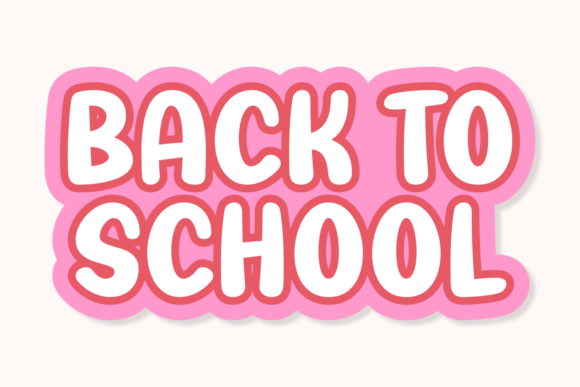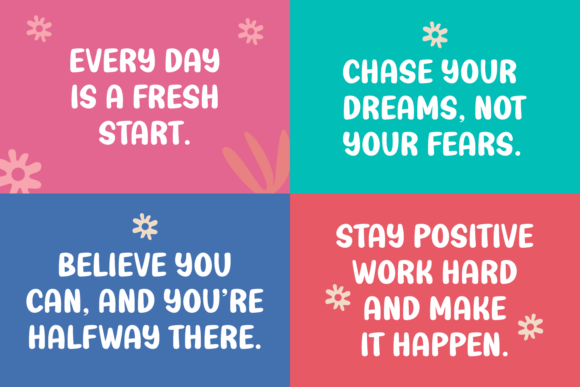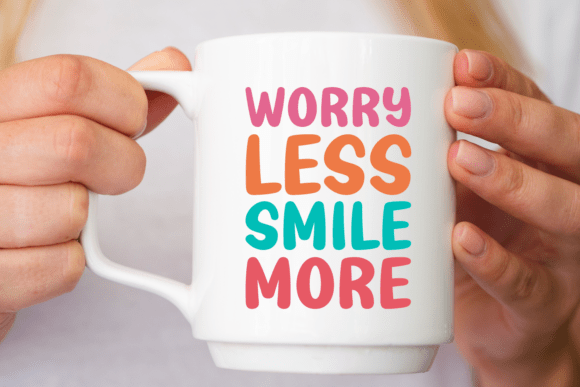
Introduction to Kinder Bright Font
Have you ever found yourself doodling in a notebook, letting your imagination run wild, and creating a world of wonder? That’s exactly the kind of creative spark that Kinder Bright Font is designed to ignite. This vibrant display typeface is more than just a font – it’s a gateway to a world of playfulness and innocence, perfect for bringing your most innovative ideas to life.
As a designer, you’re always on the lookout for the perfect design resource to elevate your creative project. With Kinder Bright Font, you’ve found a high-quality companion that’s sure to bring a smile to your audience’s faces. Whether you’re working on a project for an independent daycare, children’s toy packaging, or primary school event posters, this font is the perfect choice to convey a sense of friendliness and approachability.
Key Features of Kinder Bright Font
- Designed with a crisp and vibrant aesthetic, ideal for use in digital and print media
- Perfect for use in logos, branding materials, and other design projects where a bright and playful feel is desired
Honest Review: Kinder Bright Font
I recently stumbled upon the Kinder Bright Font, and I must say it’s been a game-changer for my creative projects. As a designer, I’m always on the lookout for high-quality fonts that can elevate my designs.
The Kinder Bright Font is a great addition to any design resource collection. With its free download, I was able to add it to my font library without breaking the bank. One of the standout features of this font is its versatility – it works well for both digital and print designs.
- Only available in a limited number of font styles
- No support for bold or italic text
Overall, I’m really impressed with the Kinder Bright Font. While it may have some limitations, its high-quality design and free download make it a great addition to any designer’s toolkit. I’d highly recommend it for any creative project that needs a fresh and modern look.
Tips for Getting the Most Out of Kinder Bright Font
Use Kinder Bright Font with a transparent background for a clean and modern look. Experiment with different font sizes and styles to add visual interest to your design. You can also use Kinder Bright Font as a design resource for your creative project.
Kinder Bright Font is ideal for designing children’s educational materials, party invitations, and other creative projects that require a fun and playful look. You can also use Kinder Bright Font to add a touch of whimsy to your branding and marketing materials.